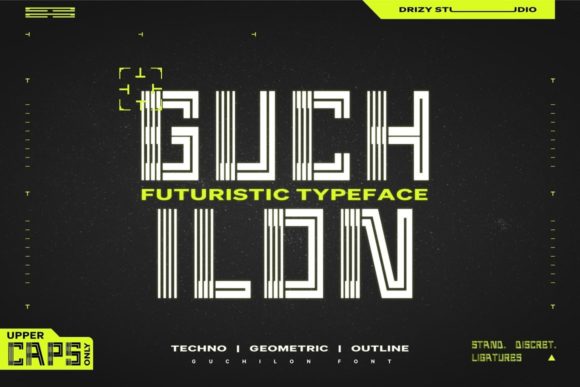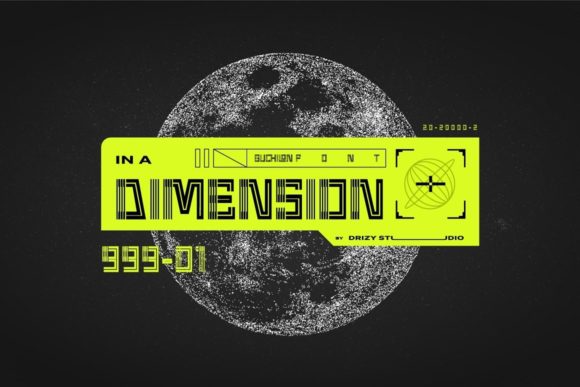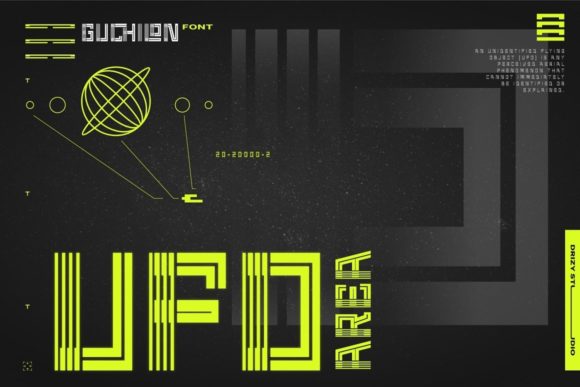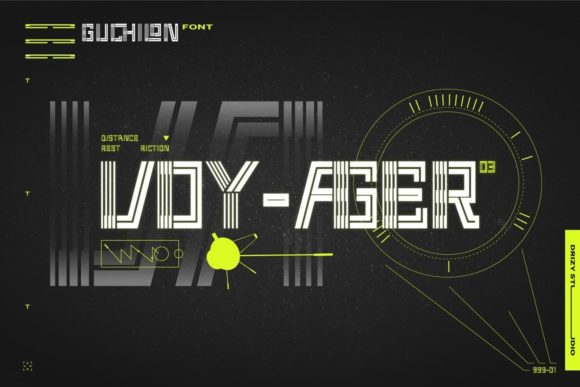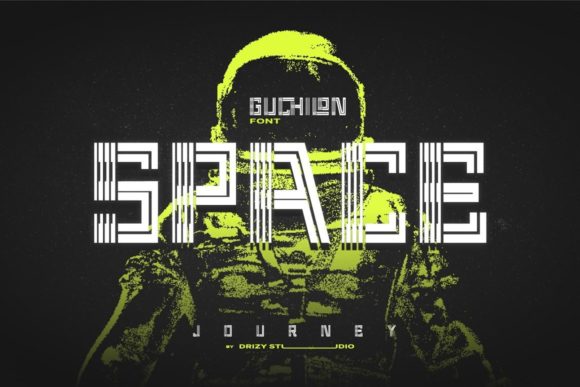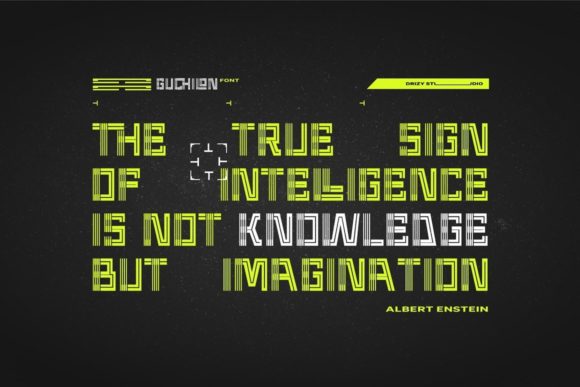
Guchilon Font: The Ultimate Choice for Bold and Daring Design Projects
In the world of typography, fonts play a crucial role in conveying the tone and personality of a design. For designers and crafters looking to make a statement, Guchilon Font is the perfect choice. This modern and futuristic display font is designed to add a touch of boldness and daring to any project, making it ideal for sci-fi movie covers, adventure books, thrilling games, and other similar designs.
What is Guchilon Font?
Guchilon Font is a display font that boasts a unique and futuristic design. Its sleek lines, sharp edges, and bold typography make it stand out from other fonts. The font is designed to be attention-grabbing, making it perfect for projects that require a bold and daring look. Whether you’re working on a sci-fi movie cover, an adventure book, or a thrilling game, Guchilon Font is sure to make your design pop.
Key Features of Guchilon Font
So, what makes Guchilon Font so special? Here are some of its key features:
- Modern and Futuristic Design: Guchilon Font has a sleek and modern design that is perfect for futuristic and sci-fi themed projects.
- Bold and Daring: The font is designed to be bold and attention-grabbing, making it perfect for projects that require a strong visual impact.
- Highly Versatile: Guchilon Font can be used for a wide range of projects, from movie covers to book titles, and even game designs.
- Easily Readable: Despite its bold design, Guchilon Font is easily readable, making it perfect for titles, headings, and other display text.
Use Cases for Guchilon Font
Guchilon Font is a versatile font that can be used for a wide range of projects. Here are some use cases where Guchilon Font shines:
- Sci-Fi Movie Covers: Guchilon Font is perfect for sci-fi movie covers, adding a touch of futurism and boldness to your design.
- Adventure Books: The font is also great for adventure book covers, conveying a sense of excitement and danger.
- Thrilling Games: Guchilon Font can be used to create bold and attention-grabbing titles for thrilling games, such as action-adventure games and sci-fi games.
- Poster Designs: The font can also be used for poster designs, adding a touch of boldness and futurism to your artwork.
Tips for Using Guchilon Font
Here are some tips for using Guchilon Font effectively:
- Use it for Headings and Titles: Guchilon Font is perfect for headings and titles, where you want to make a bold statement.
- Pair it with a Simple Font: Pair Guchilon Font with a simple font for body text to create a striking contrast.
- Experiment with Colors: Guchilon Font looks great in bold and bright colors, so don’t be afraid to experiment with different color schemes.
In conclusion, Guchilon Font is a modern and futuristic display font that is perfect for bold and daring design projects. Its unique design, bold typography, and highly versatile nature make it a great choice for sci-fi movie covers, adventure books, thrilling games, and other similar designs. With its ease of use and flexibility, Guchilon Font is sure to become a favorite among designers and crafters.